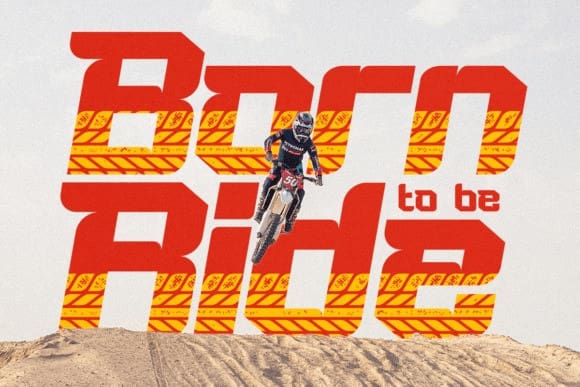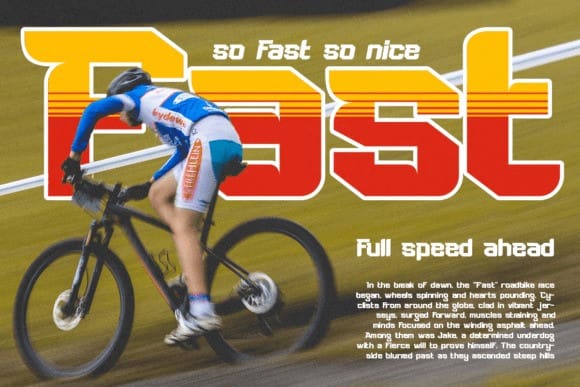
Speed Force Font
Speed Force Font, an awesome sports font crafted to infuse your projects with energy and motion. This bold typeface, with its modern cutouts, captures the essence of speed and power. Perfect for sports headlines, racing logos, automotive games, and any text that needs a vibrant, fast-paced feel, SpeedForce ensures your designs stand out with a commanding presence.
Whether you’re crafting magazine headlines, logos, or game graphics, Speed Force delivers readability, strength, and a touch of modern flair, making your designs unforgettable.